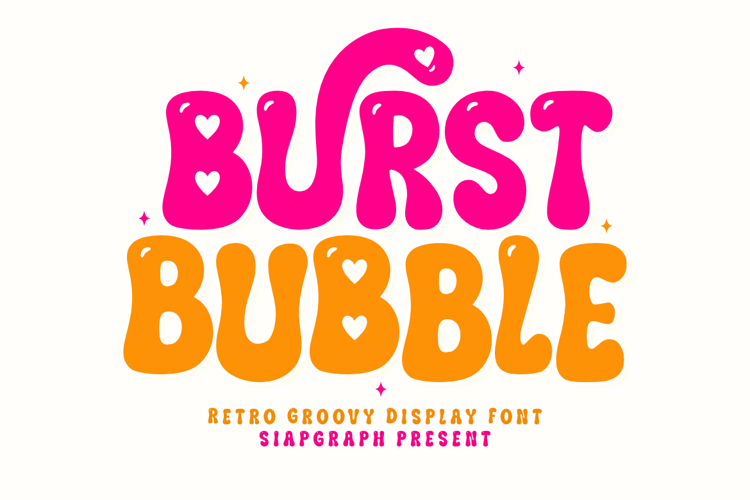
Burst Bubble - Retro Groovy Font
Burst Bubble is a retro groovy display font that radiates playful energy and cheerful vibes. With its thick, rounded letterforms, unique glossy highlights, and adorable heart accents integrated into the characters, this typeface is perfectly crafted for designs that need to look friendly, fun, and full of personality. Its clean, bold, and chunky construction makes it highly versatile and easy to use for various creative projects.
Perfect for: creating high-converting SVG cut files, personalized stickers, kids' party decorations, adorable nursery wall art, custom t-shirt designs, and playful social media graphics. Whether you are working on Print on Demand (POD) products or DIY crafts, this font provides the perfect blend of readability and whimsical, retro-inspired charm.
Great for holiday themes such as Birthdays, Valentine's Day, Summer parties, Children's Day, and Back to School events, adding a sweet, optimistic, and bubbly personality to all your seasonal designs!